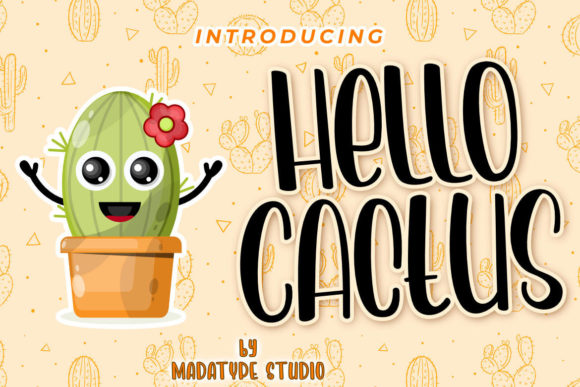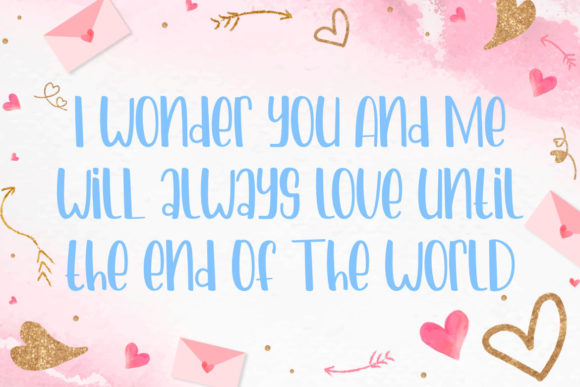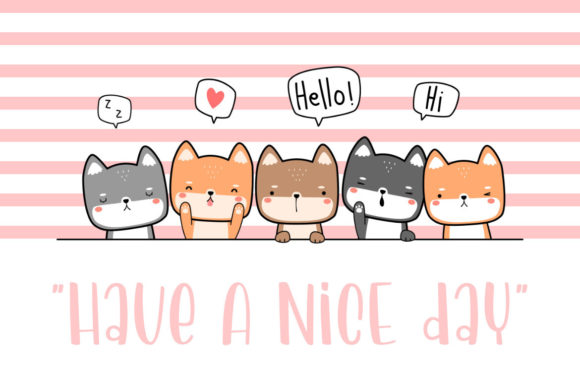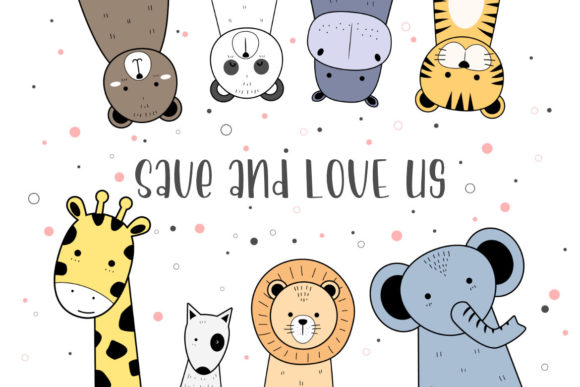
Hello Cactus Font: A Cute Display Font for Cricut & DIY Projects
About the Hello Cactus Font
Meet Hello Cactus Font, a stunning font that brings a touch of elegance and professionalism to any design. Hello Cactus is a fun and friendly display font. Whether you use it for cartoon related designs, children games or just any creation that requires a lovely touch, this font will be an amazing choice.
Hello Cactus thrives in display applications such as logos, posters, and short headlines where its playful character shines. It’s ideal for projects targeting children, brands with a lighthearted image, or designs needing a touch of whimsical charm. Avoid using it for body text or UI elements; its unique forms are not optimized for readability in extended passages.
Pairing Hello Cactus with a clean sans-serif like Open Sans for body copy creates a strong visual contrast, balancing the font’s playful energy with clear readability. For a more sophisticated look, consider a classic serif like Garamond for supporting text, providing a touch of elegance that complements the font’s friendly personality.
The overall personality of Hello Cactus is undeniably cheerful and approachable, making it a perfect choice for projects needing a fun, inviting aesthetic.